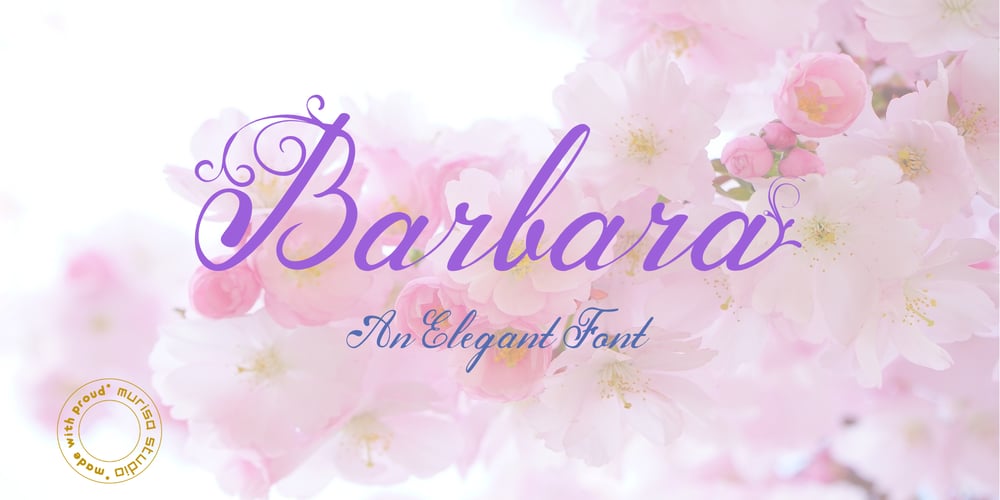
Murisa Barbara
Murisa Barbara font
Murisa Barbara Font Family was designed by Lili and published by Murisa Studio. Murisa Barbara contains 1 styles and family package options. This time we present to you our newest font. Barbara is one of our proud fonts. Barbara is designed with the inspiration of a woman’s beauty. Barbara was born with stunning elegance. You can use this font for your daily needs, such as writing a message, quote words, or the name of the recipient of your invitation. You can of course also use this font in your products. Barbara will perfect your product. Elegance, cheerfulness, beauty will be the main attraction for your product. Get it right now.